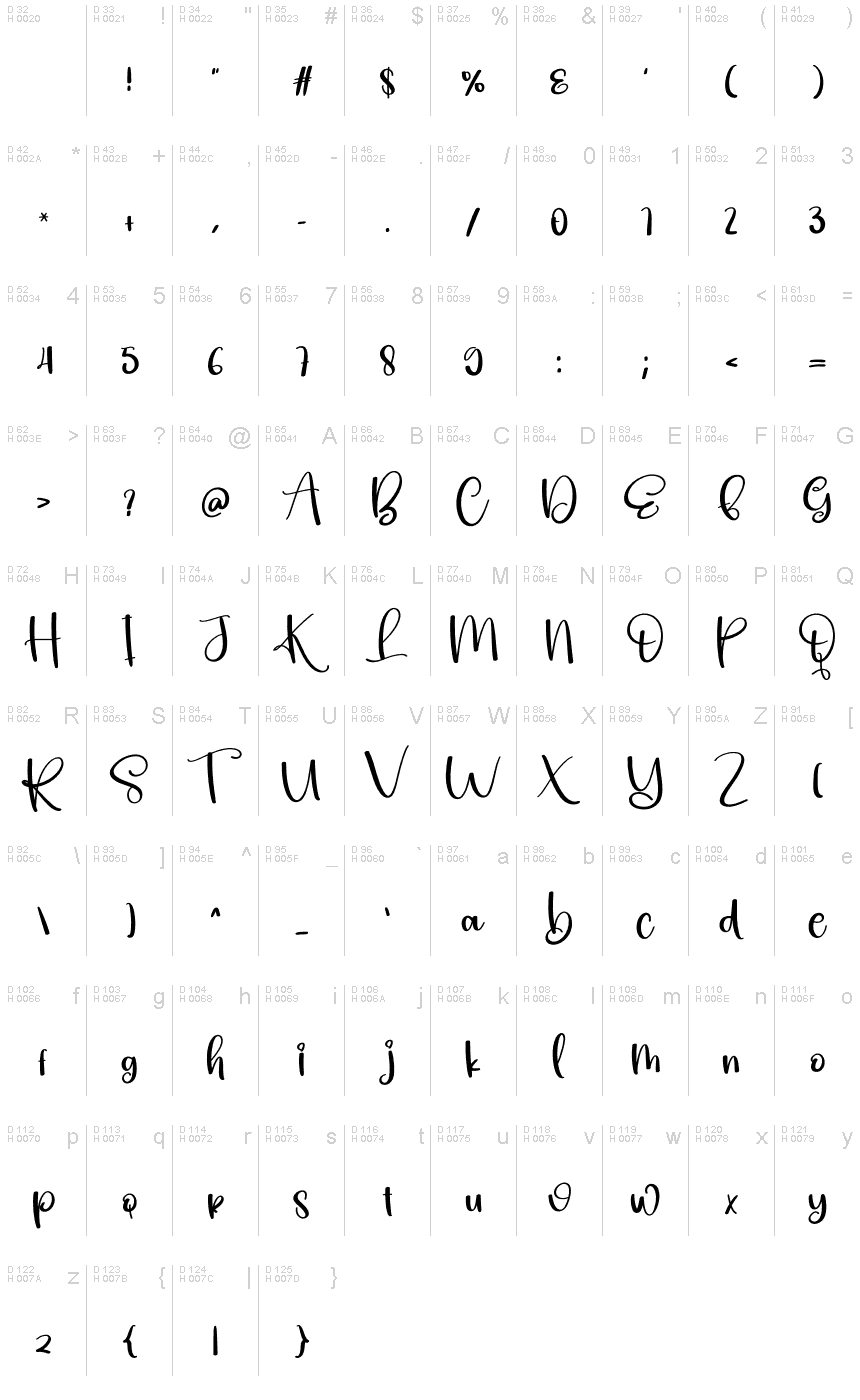
Marble
Marble, an exquisite creation by scratchones, unveils a captivating handwritten font style that exudes elegance and charm. The semi-light weight of this typeface adds a delicate touch to any project, making it ideal for greeting cards, wedding invitations, and elegant stationery. Whether crafting a heartfelt message or designing sophisticated branding materials, Marble's flowing curves and unique character will effortlessly elevate your creations. Let your imagination run wild as you embrace the versatility of this font, perfectly suited for fashion editorials, lifestyle blogs, and boutique branding projects.